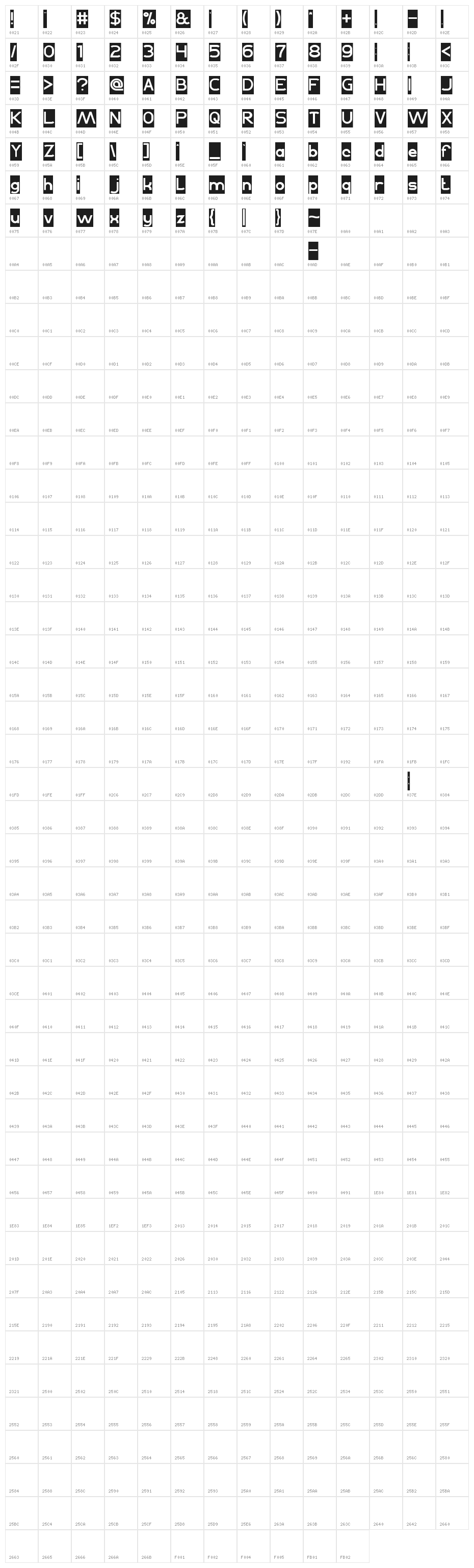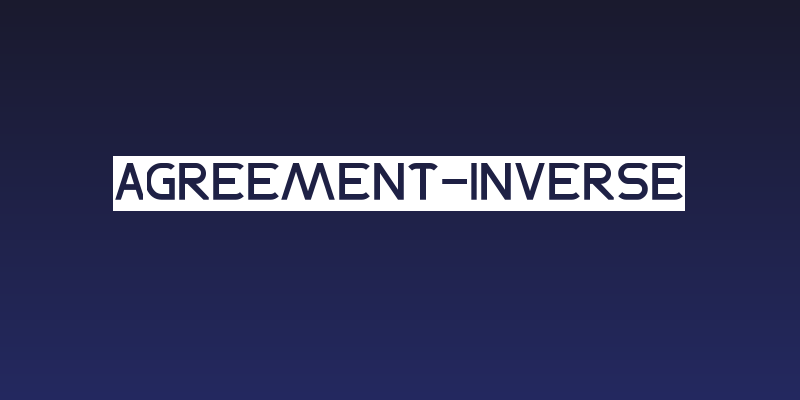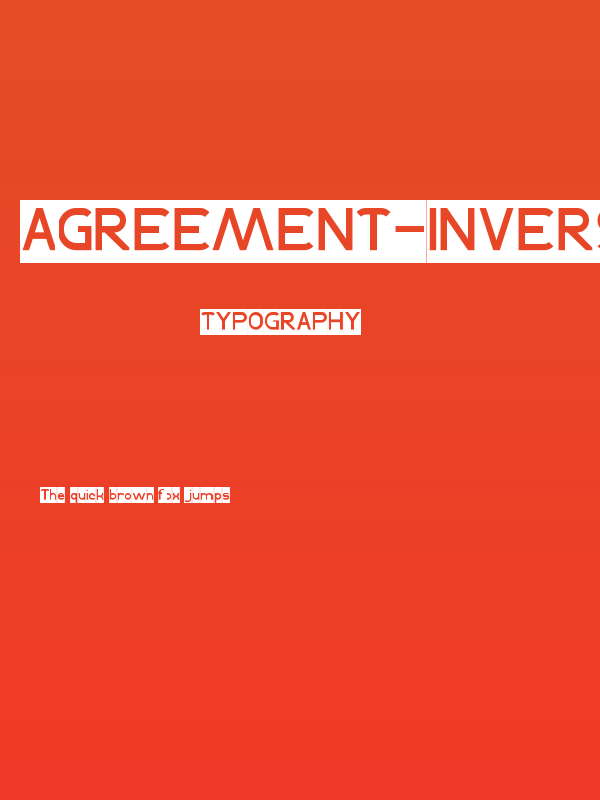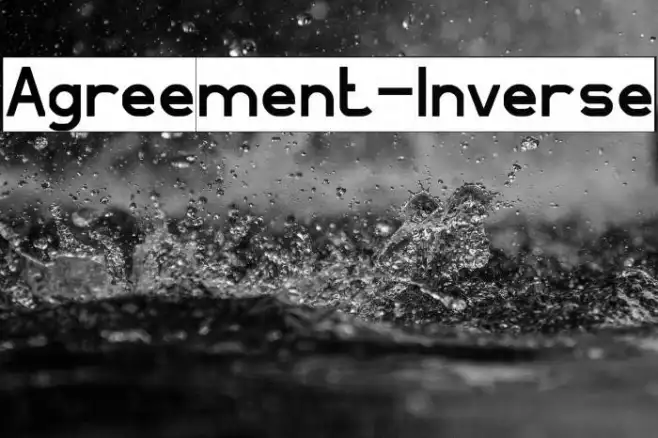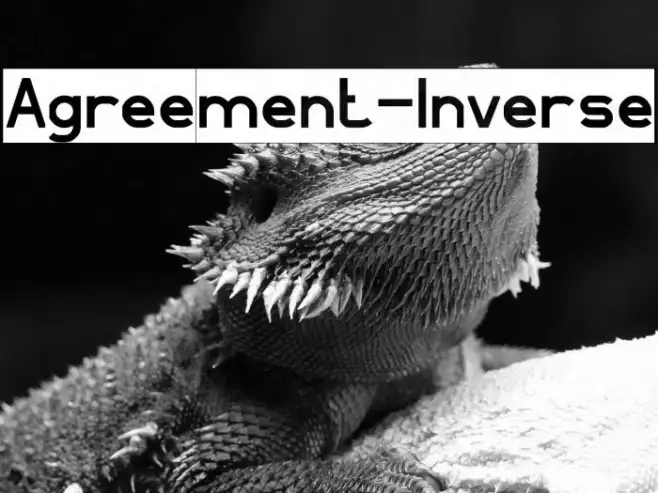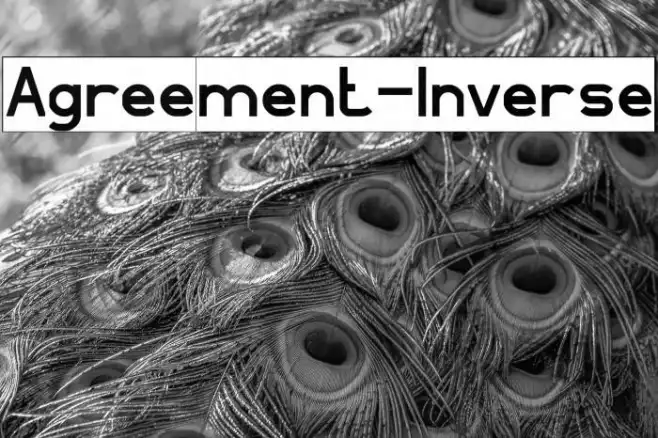
Agreement-Inverse Font
Agreement-Inverse Description
This font features a modern and geometric design with clean lines and a bold presence. The uppercase letters are uniform in height, creating a cohesive and structured appearance. The lowercase letters maintain a similar geometric style, with rounded edges that add a touch of softness to the overall design. The numerals are consistent with the letterforms, ensuring readability and balance. Special characters are designed with the same attention to detail, making them easily distinguishable. The font's style is versatile, suitable for various design projects that require a contemporary and impactful look.
AGREEMENT-INVERSE UPPERCASE
AGREEMENT-INVERSE LOWERCASE
AGREEMENT-INVERSE OTHER CHARS